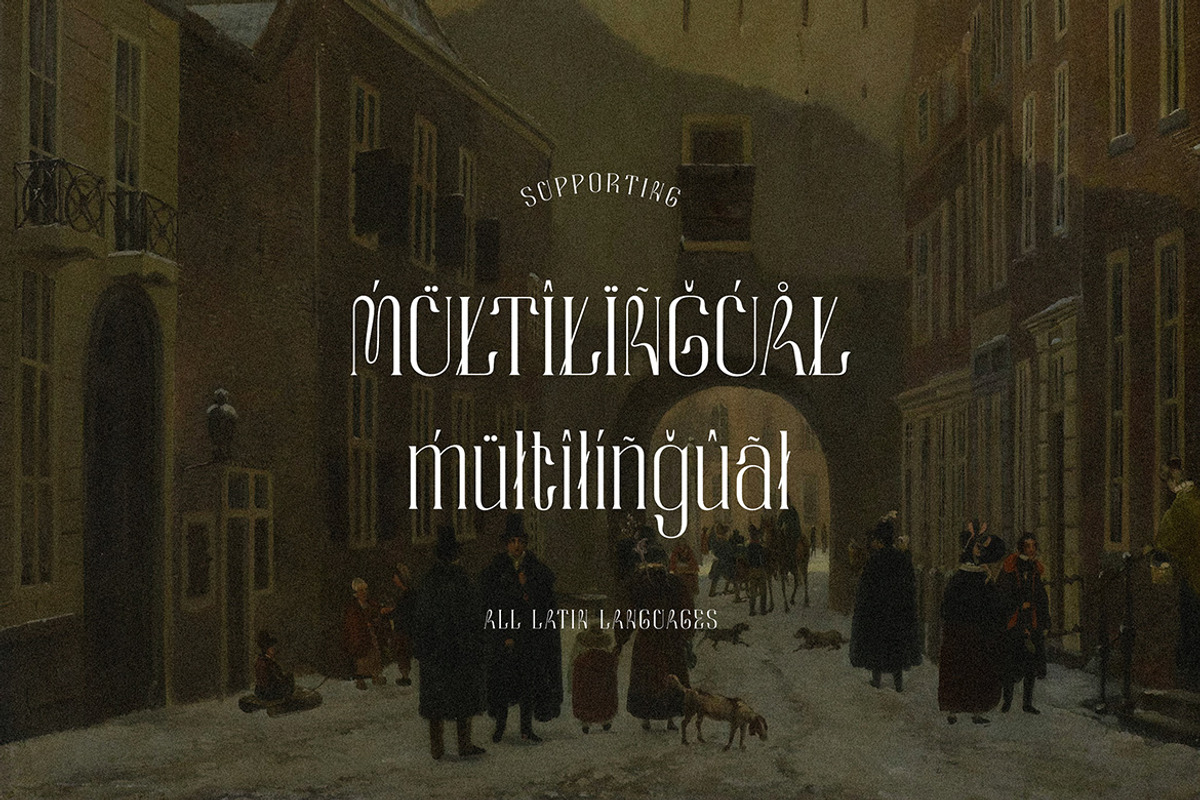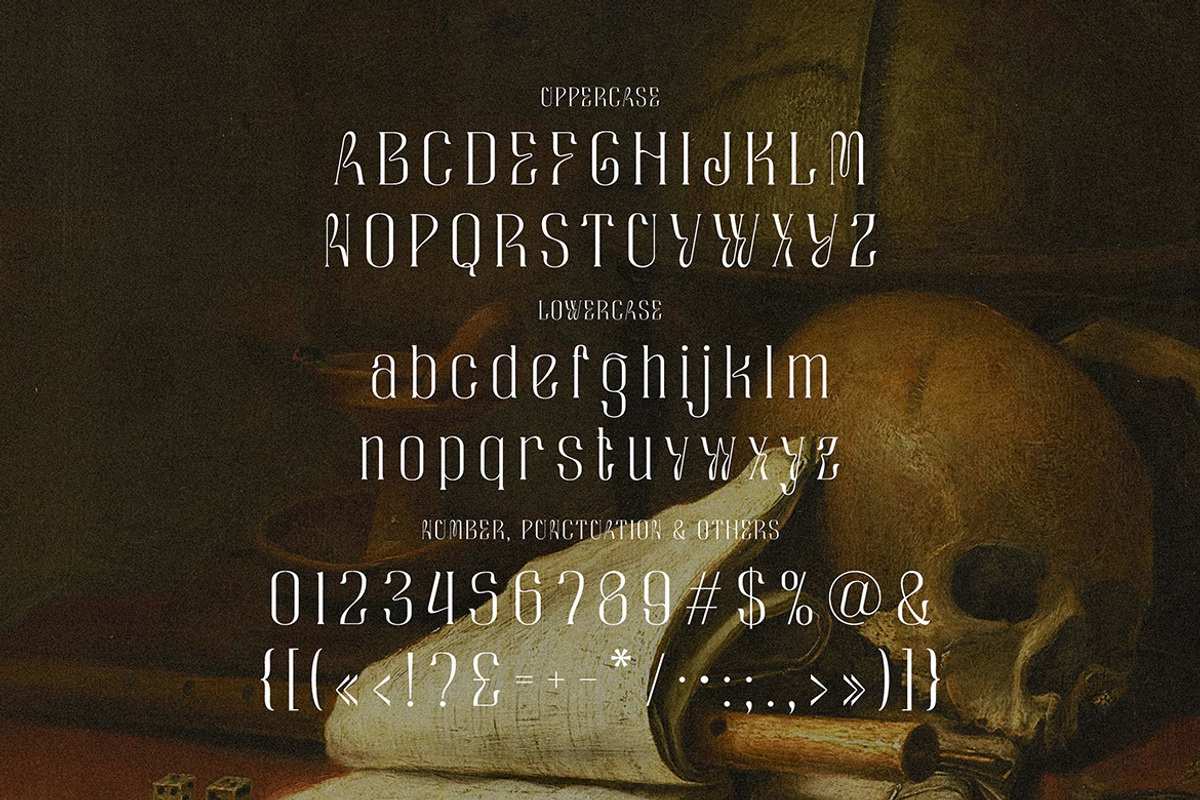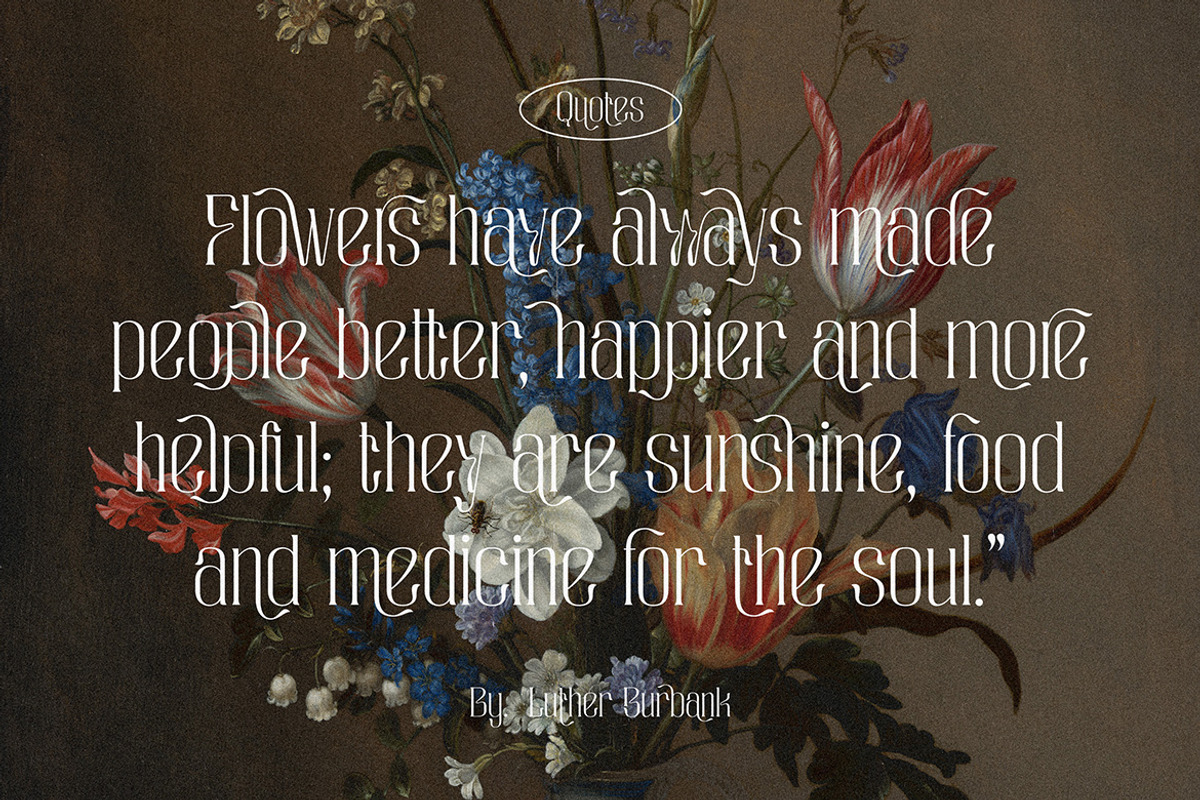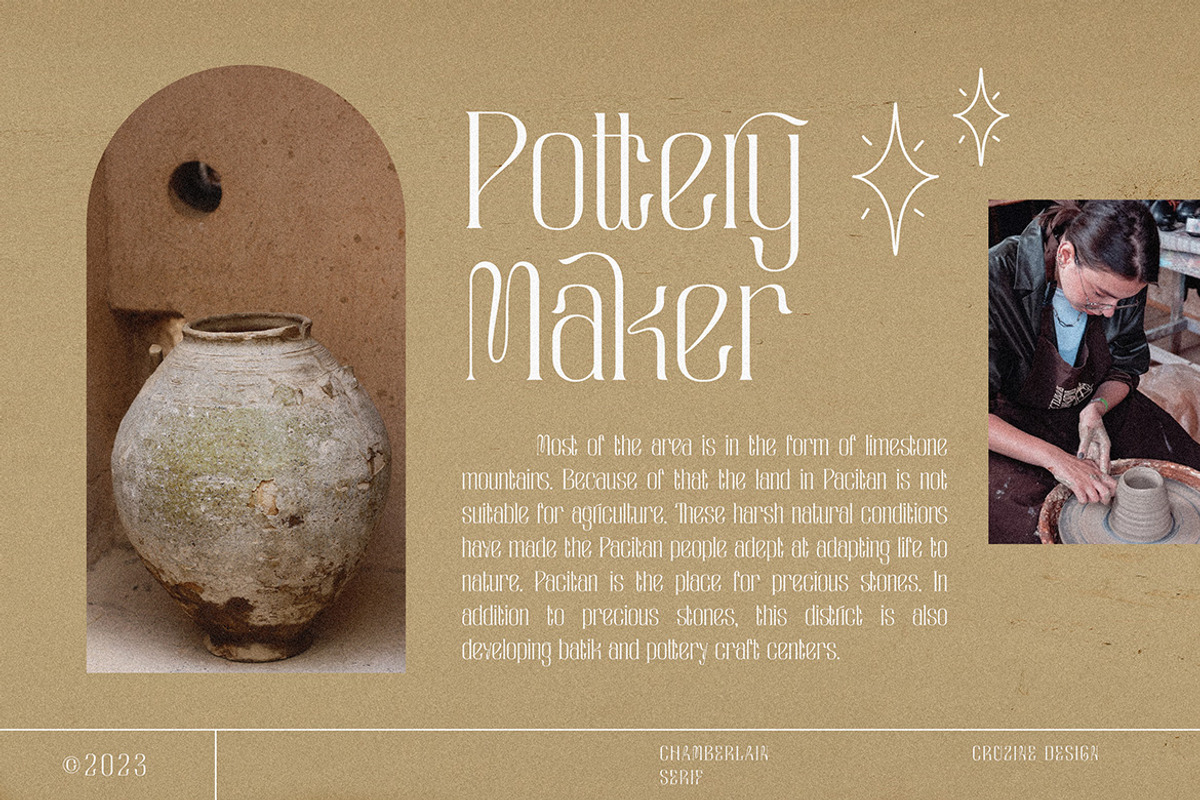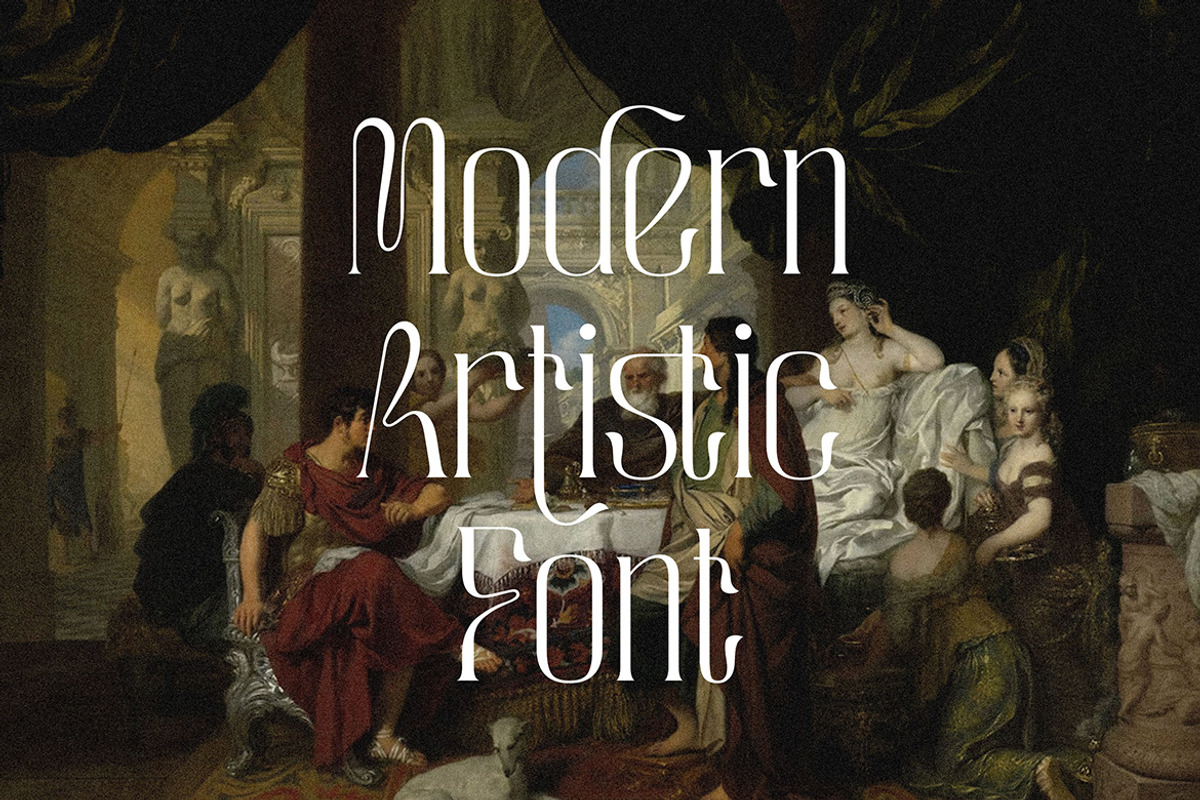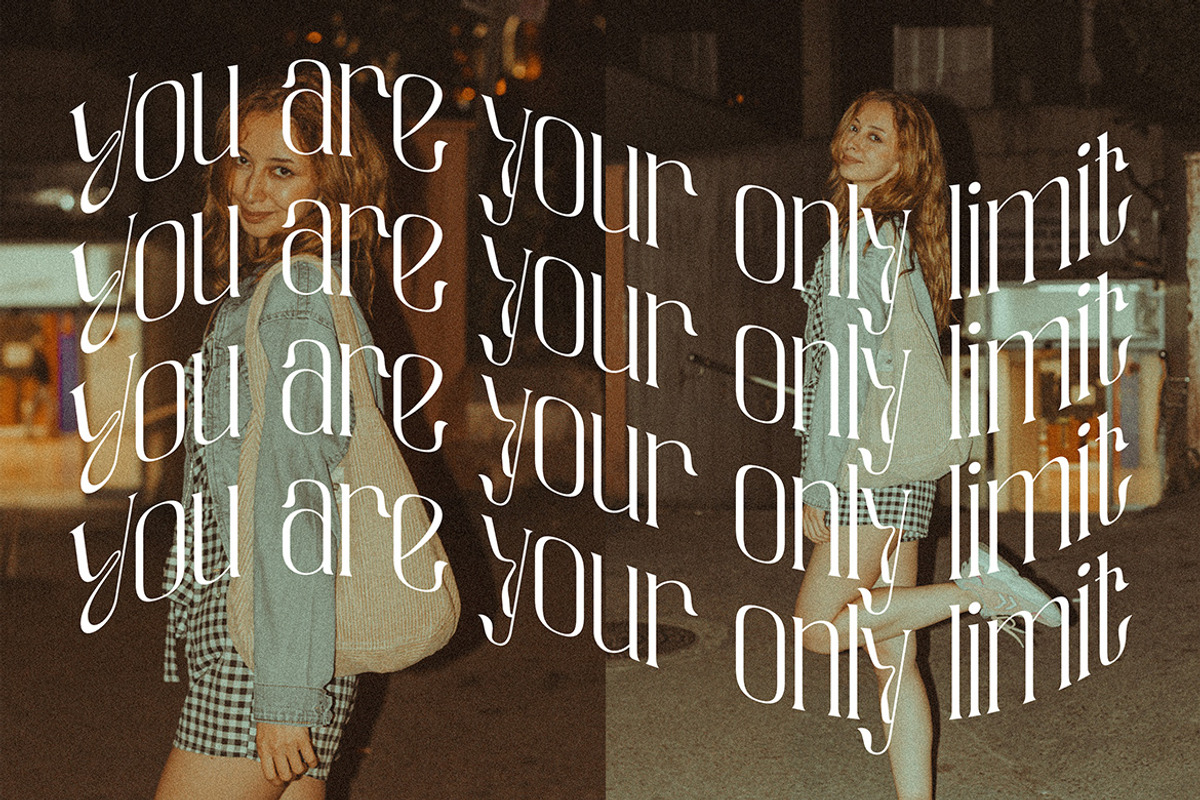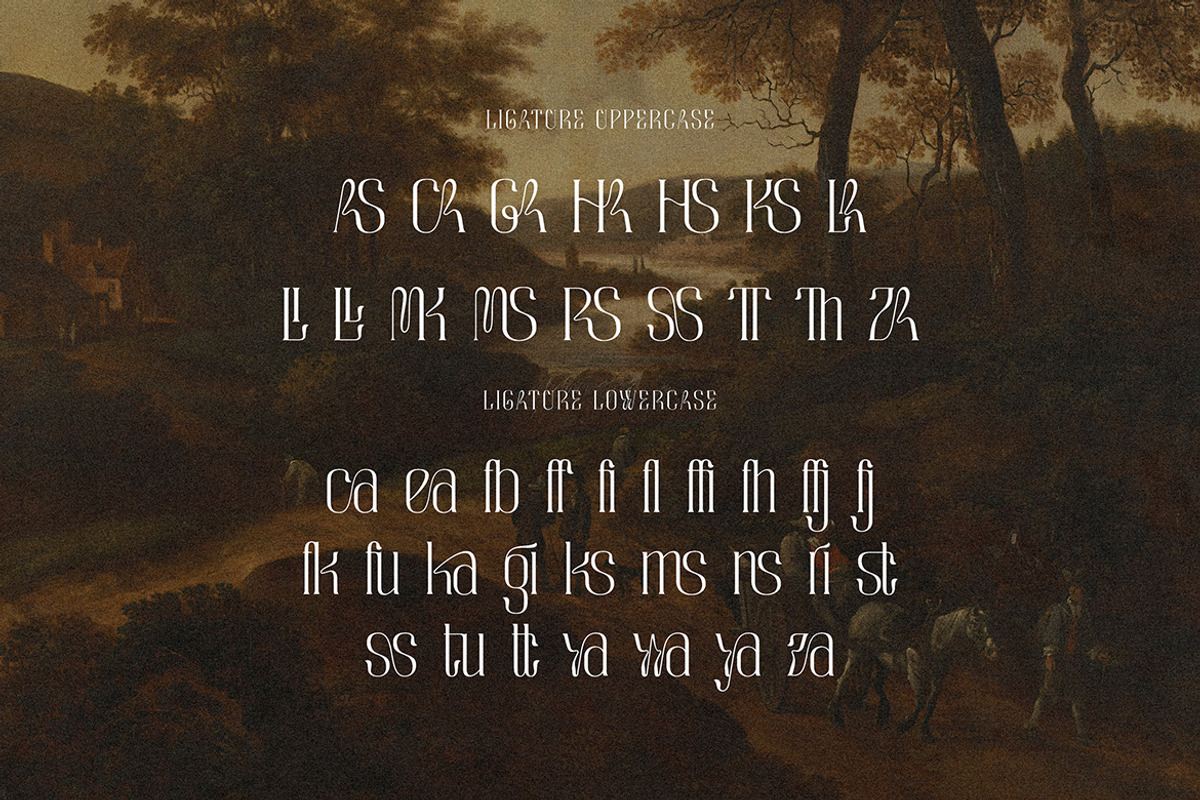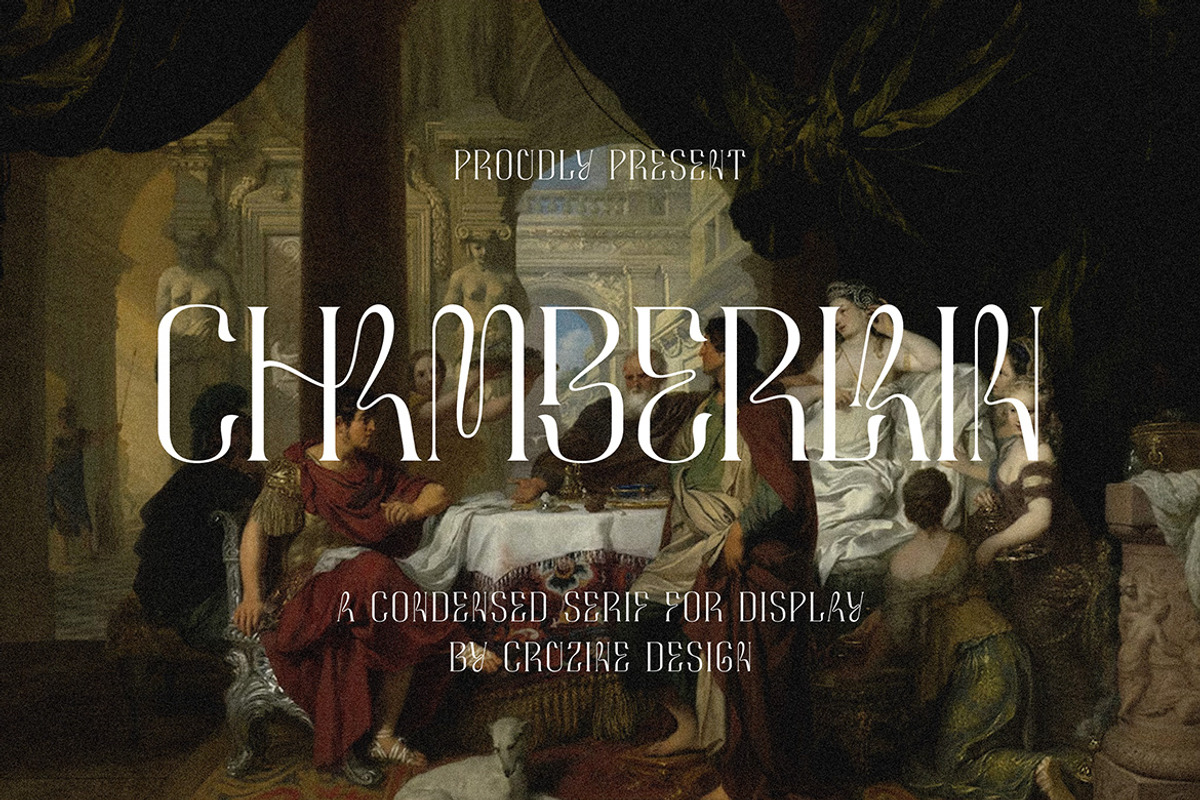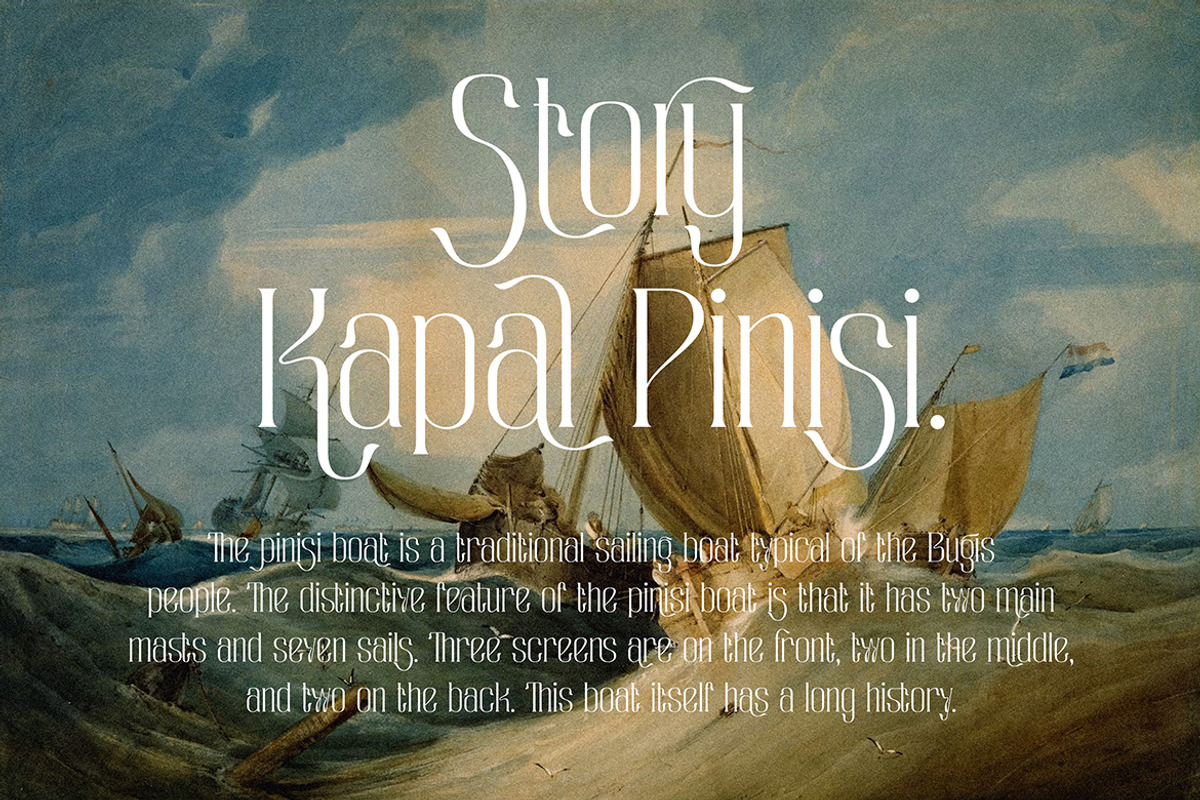
Chamberlain Condensed Display Serif
Trendy, groovy, artistic & retro style serif font for your new modern projects. Elegant, artistic, quirky and funky style on Chamberlain font will be great for any branding project. Lot of alternates and ligatures will help you to create unique and original logo design or website header! Enjoy :)
- Alternate characters
- Great for modern branding projects!